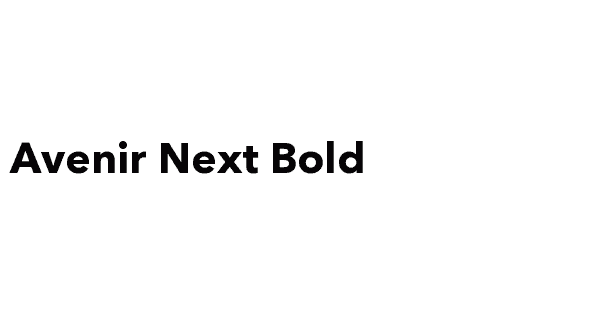
Avenir Next Font Demi Bold. Avenir next pro is a new take on a classic face—it’s the result of a project whose goal was to take a beautifully designed sans and update it so that its technical standards surpass the status quo, leaving us with a truly superior sans family. Download more than 10,000 free fonts hassle free, desktop and mobile optimized, around for more than 20 years.
Avenir next bold font details. Check it for free with typograph. Free fonts often have not all characters and signs, and have no kerning pairs (avenue ↔ a venue, tea ↔ t ea).
It Has Been Designed With A Clean And Elegant Texture Appearance.
The Current Set Of Avenir Next’s Weights Is Therefore Ultra Light, Thin, Light, Regular, Medium, Demi Bold, Bold And Heavy, In Four Styles Each (Two Widths And Italics For Each Width).